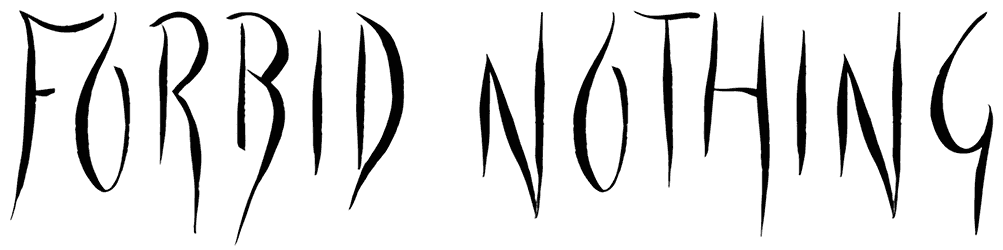
Forbid Nothing Font
Join us to reveal the most prominent horror font with a sinful tone; Forbid Nothing. A precious face can revive the viewer’s preference to opt for something new. Some units, such as albums, movie titles, Halloween flyers, packaging design, and more, would be luminous.